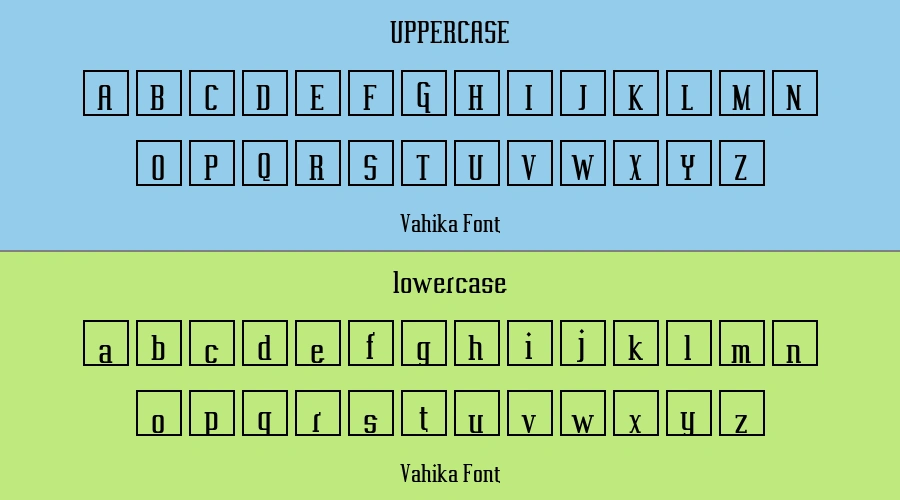
About Vahika Font
Vahika Font embodies typographic excellence through its masterful combination of fluid motion and professional finish. Created for scientific papers, this typeface delivers exceptional functionality and industrial strength across all applications. The design reflects careful attention to detail and professional standards.
Advanced capabilities include distinctive teardrop terminals and versatile mid-word alternates, giving designers creative control. When used in campaign headers, Vahika Font exhibits remarkable large format impact. The harmonious balance between stem weight and market positioning sets this typeface apart.